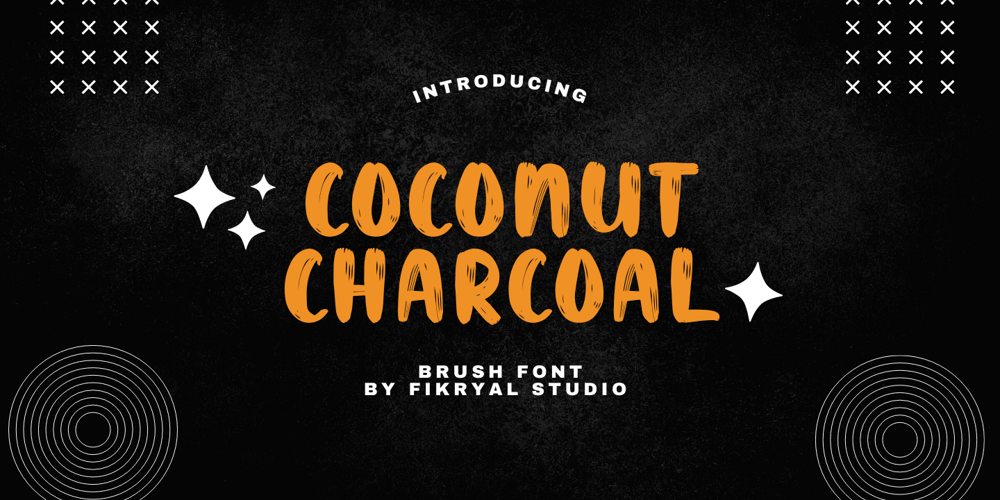
Coconut Charcoal Font Family was designed by Muhammad Fikry and published by Fikryal. Coconut Charcoal contains 1 styles and family package options. Coconut Charcoal – Font is a display brush font. It’s perfect for logos, branding, title, social media posts, advertisements, product packaging, product designs, label, photography, watermark, special event, magazine, web designs, etc. If you have any questions please don’t hesitate to contact me.follow my Instagram: fkryallThank you 🙂